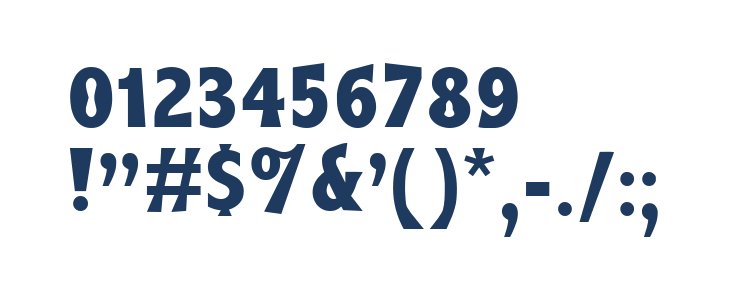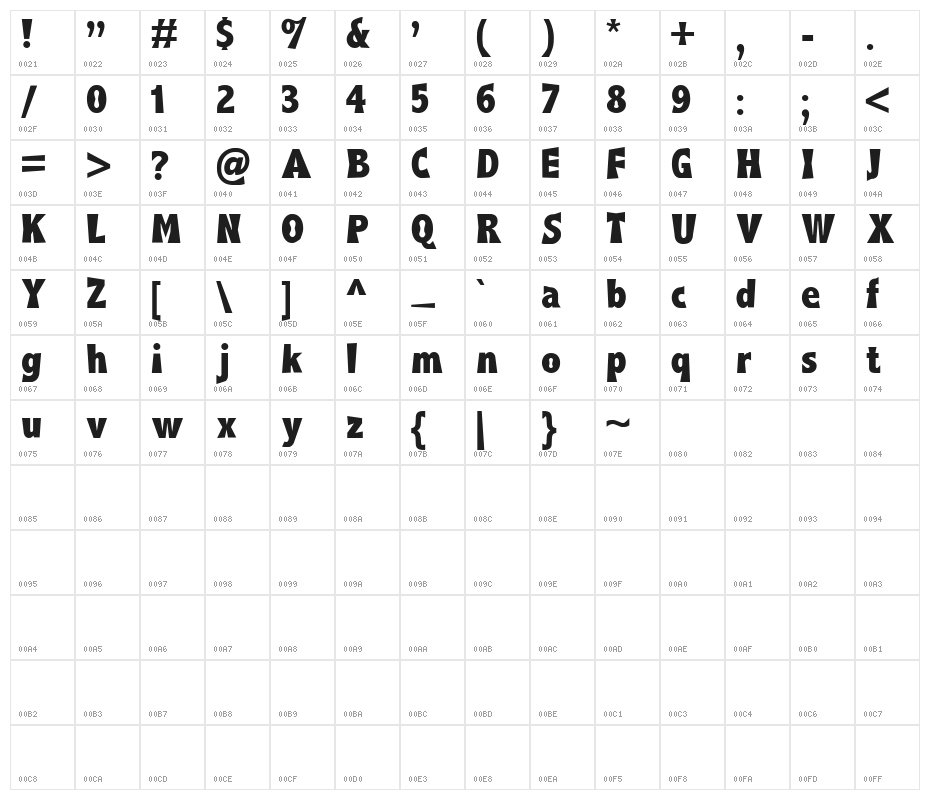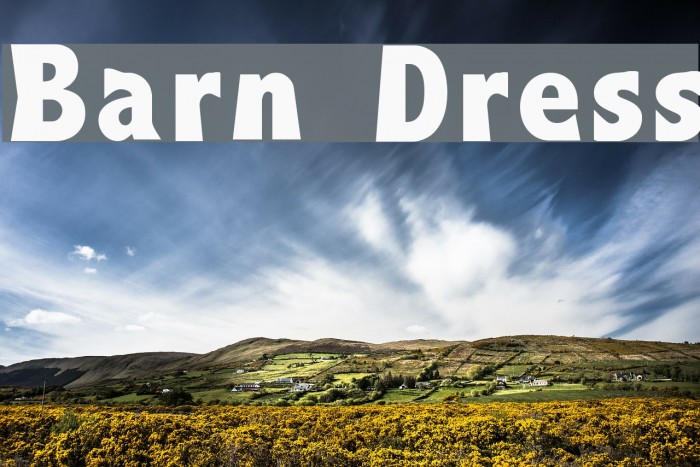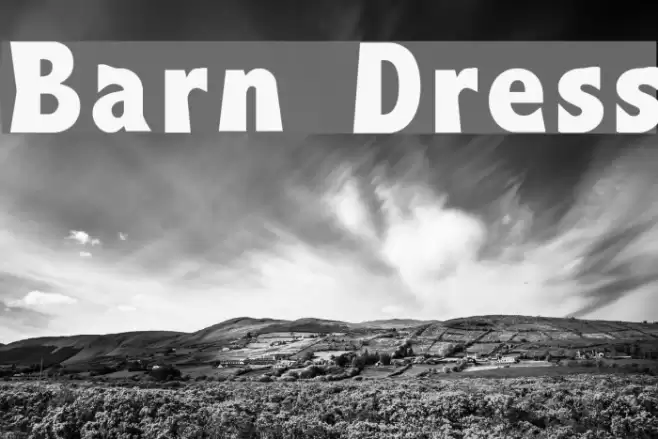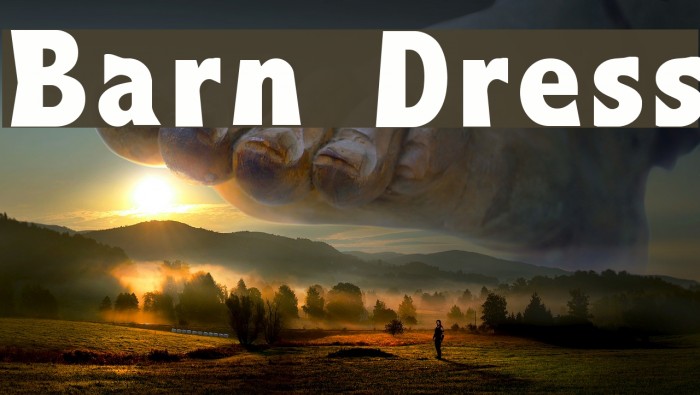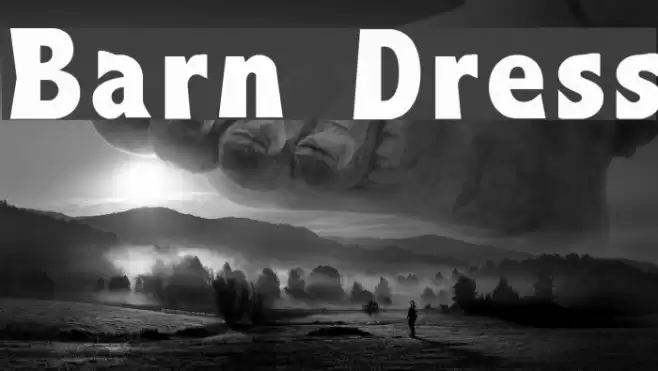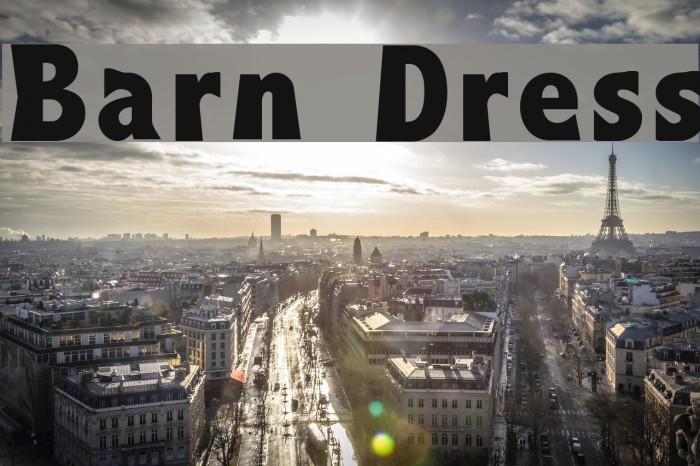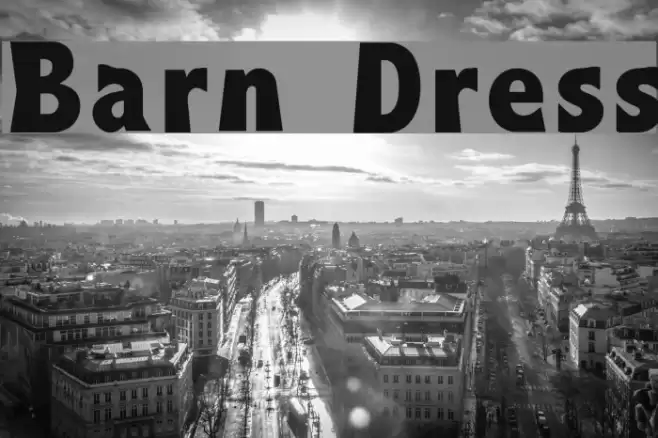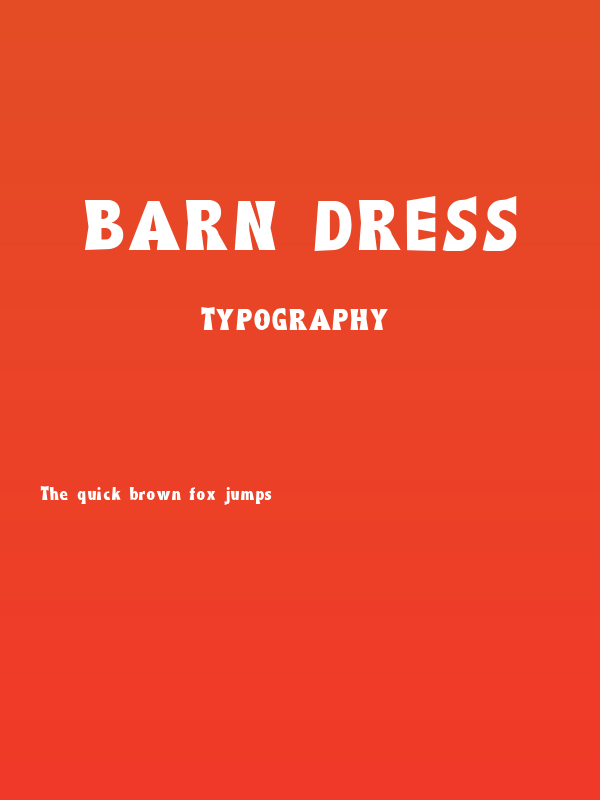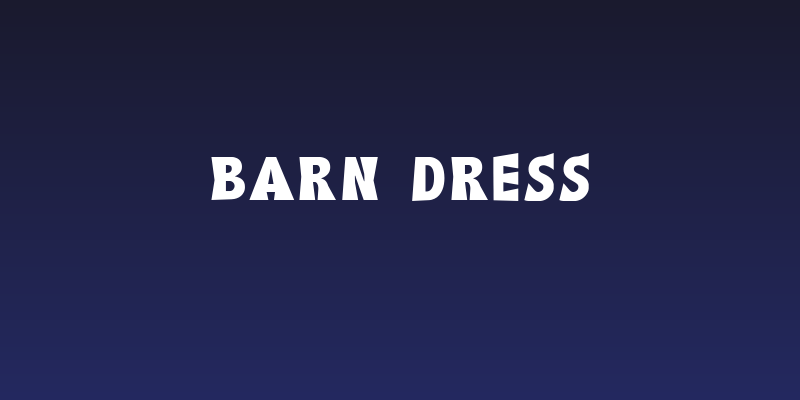
Barn Dress Font
Barn Dress Description
This font features bold, heavy strokes with a playful and slightly irregular design, giving it a unique and eye-catching appearance. The uppercase letters are particularly striking, with a strong presence and a hint of whimsy in their form. The lowercase letters maintain a consistent style, complementing the uppercase with their rounded and robust shapes. Numbers and special characters are designed to match the overall boldness and playful nature of the font, making it versatile for various uses. The font's distinct style makes it suitable for projects that require a fun and engaging visual impact.
Overall StylePlayful, Bold
Use CaseHeadlines, Posters, Branding
Proposed ProjectsIdeal for children's books, posters, branding, and any project needing a fun, bold typeface.